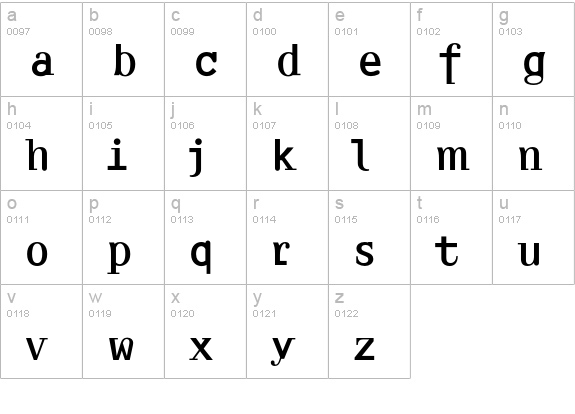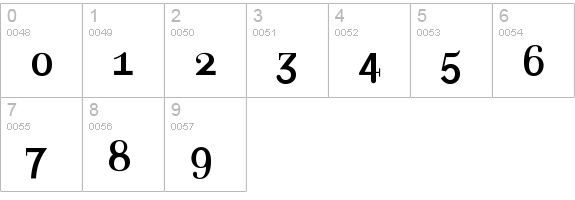
Amplifier-Light is a refined, elegant variant in the Amplifier typeface family \xE2\x80\x94 well suited to elegant body text, refined sub-headings, and luxury branding.
Amplifier-Light is a sleek and modern font that exudes sophistication and elegance. With its clean lines and contemporary style, this font is perfect for adding a touch of class to your designs. The Amplifier-Light font is free to download at FontsMarket.com, making it easily accessible for designers looking to enhance their projects with a touch of finesse. Whether you're working on branding materials, website design, or print projects, Amplifier-Light is sure to make a statement with its refined aesthetic. Download this versatile font today and elevate your designs with its timeless appeal.